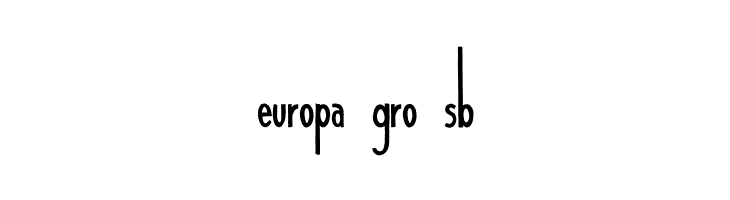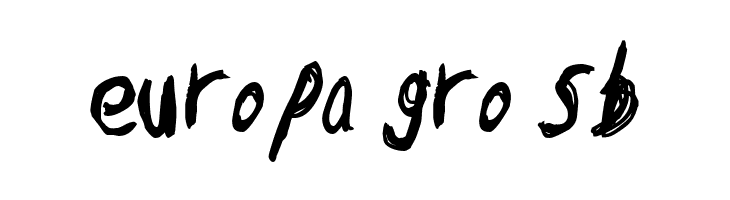
A bold, modern font with strong, uniform strokes and high legibility.
A decorative icon font featuring sushi and Japanese food illustrations as characters.
A playful, handwritten font with a dynamic, cursive style.
A modern, geometric outlined font with clean lines and sharp angles.
A highly distorted and blurred font with overlapping characters, creating an abstract visual effect.
A playful, hand-drawn font with rounded edges and a whimsical style.
A modern, elegant script font with flowing, cursive strokes.
A playful and elegant script font with flowing, interconnected letters.
A playful, handwritten font with smooth curves and a casual style.
A bold, athletic font with a three-dimensional, shadowed effect.
An elegant and sophisticated cursive script font with flowing, delicate strokes.
Ornamental and decorative border and flourish glyph set.
A playful, heart-accented font with a whimsical and friendly style.
A bold, geometric font with intricate, maze-like patterns.
A futuristic, geometric font with sharp angles and a modern style.
A geometric, angular font with a futuristic and symbolic design.
A geometric, angular font with tall, narrow letterforms and a modern aesthetic.
A bold, decorative font with a chain-like pattern and rounded strokes.
A bold, graffiti-style font with dynamic, energetic strokes.
A bold, graffiti-inspired font with a playful, hand-drawn style.
A playful, hand-drawn font with a rough, textured appearance.
A bold, decorative outline font with a playful and eye-catching style.